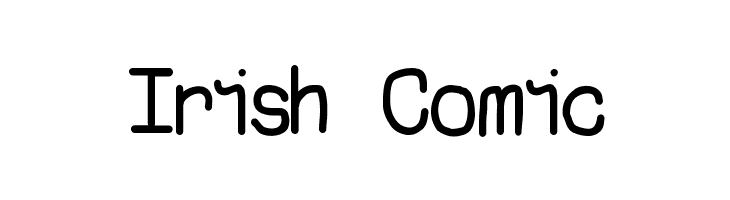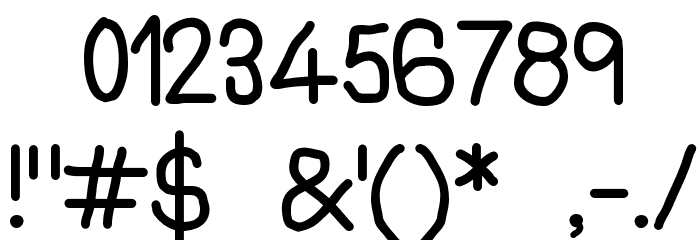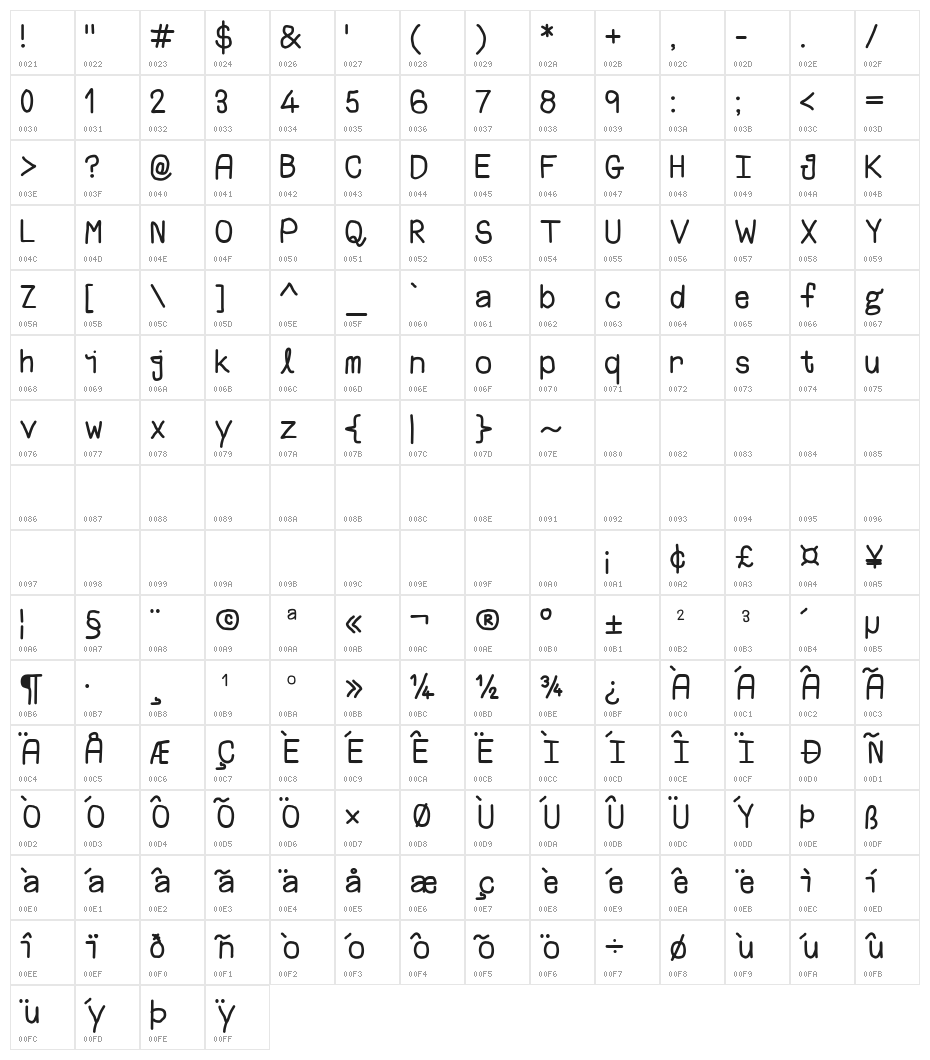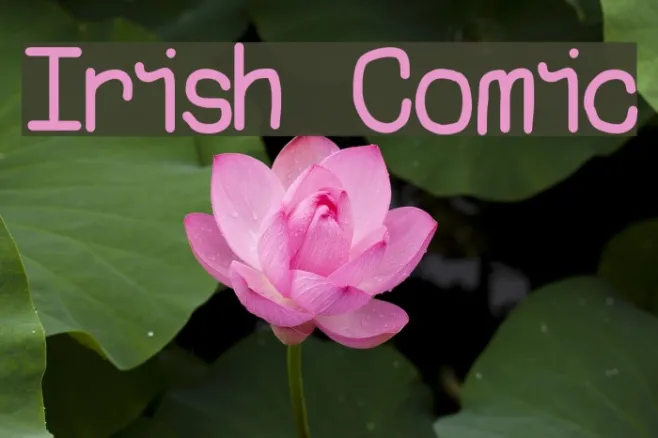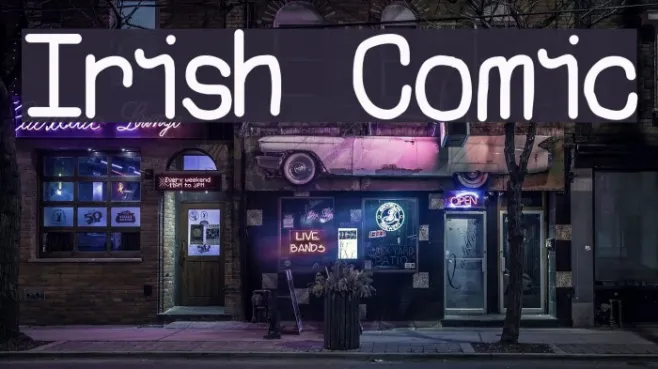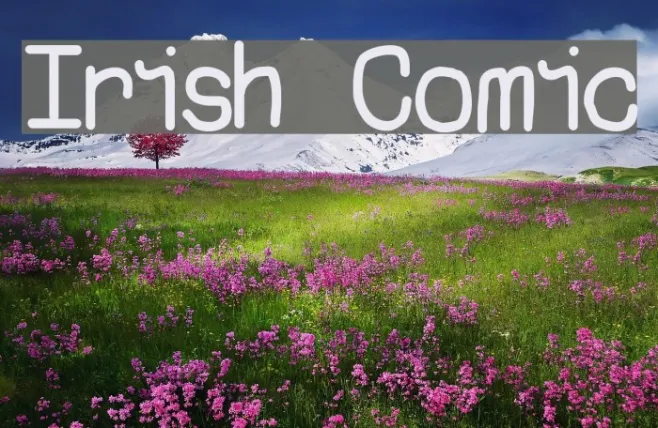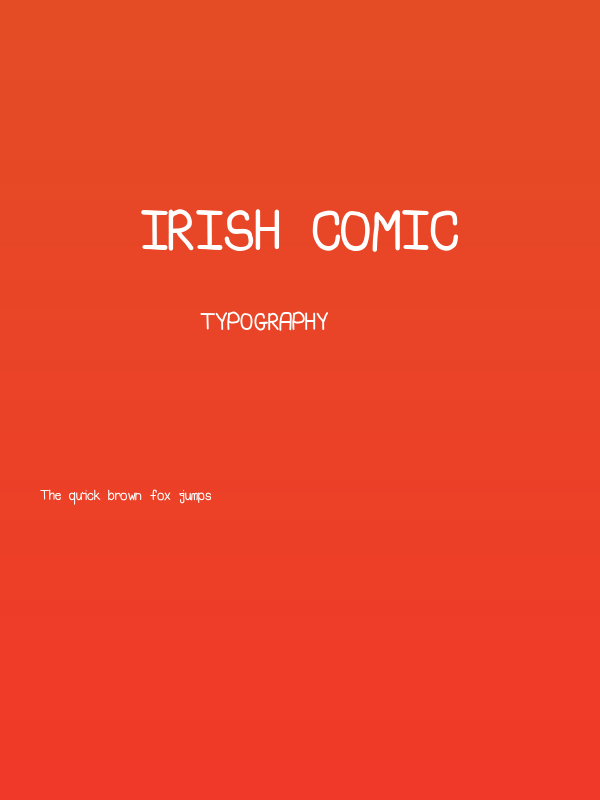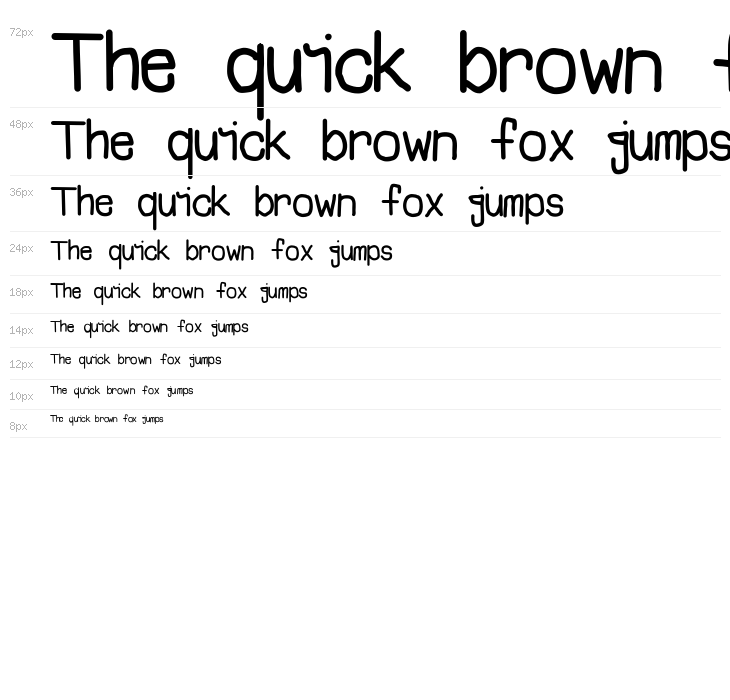
Irish Comic Font
Irish Comic Description
This playful and whimsical font features rounded, slightly irregular letterforms that convey a sense of fun and informality. The characters have a hand-drawn quality, with a consistent stroke width that gives them a bold appearance. The uppercase letters are tall and narrow, while the lowercase letters are more rounded and compact, creating a lively contrast. The numbers and special characters maintain the same playful style, making the font versatile for various creative projects. Its unique style is perfect for adding a touch of humor and personality to any design.
| Proposed Projects | Ideal for comic books, children's books, playful branding, and casual invitations. |